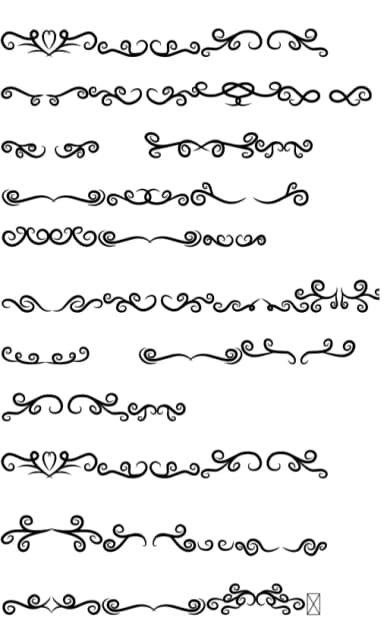
1 / 5About Beach Summer Divider Font
This font captures the relaxed, sun-soaked energy of a seaside getaway. Beach Summer Divider, designed by CraftedType Studio, is a dingbat typeface loaded with ornamental dividers and beautifully rendered glyph illustrations that bring coastal warmth to any project without veering into novelty territory or feeling saccharine.
The typeface finds its strongest applications in specific seasonal design work: beach resort stationery and tropical destination wedding invitations, watercolor planner spreads paired with hand-lettered headers, vinyl sticker sheets for Etsy craft sellers, and screen-printed merchandise graphics for summer brands. Beyond the obvious, its rich collection of divider elements solves a real design problem, letting you break sections, frame text blocks, and build visual hierarchy without hunting for separate graphics or custom illustrations. The glyphs scale gracefully from tiny journal accents to large signage, and they work particularly well layered beneath custom lettering or alongside hand-drawn headers. Each ornament has been thoughtfully spaced and weighted, so they read as intentional when combined or used singly, never cluttered.
Pair it with a clean, minimal sans-serif whenever you need readable body text to anchor longer layouts and maintain hierarchy. You'll find Beach Summer Divider available on Creative Fabrica, ready to bring a touch of seasonal authenticity to your growing design toolkit.
Beach Summer Divider Font is a versatile dingbats font that works for both headings and body text. Pair it with a contrasting sans-serif or serif font to add visual interest and a clear distinction between titles and body copy.